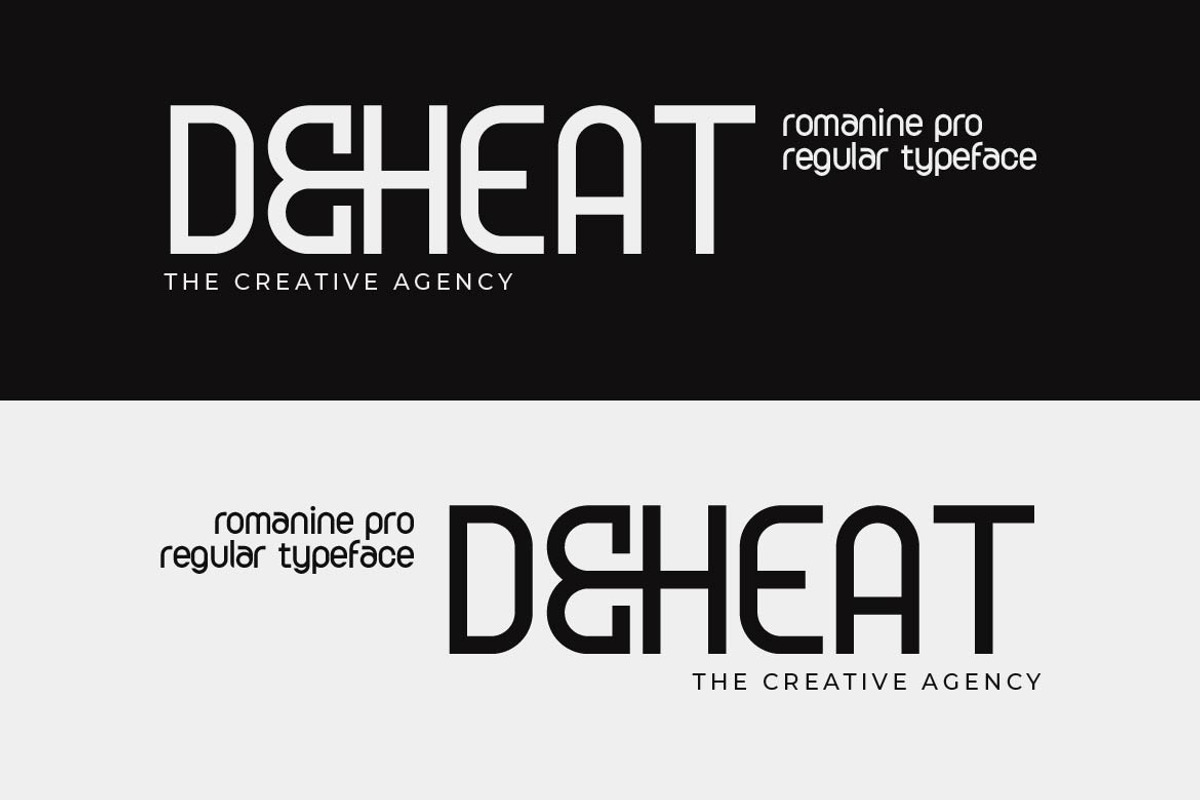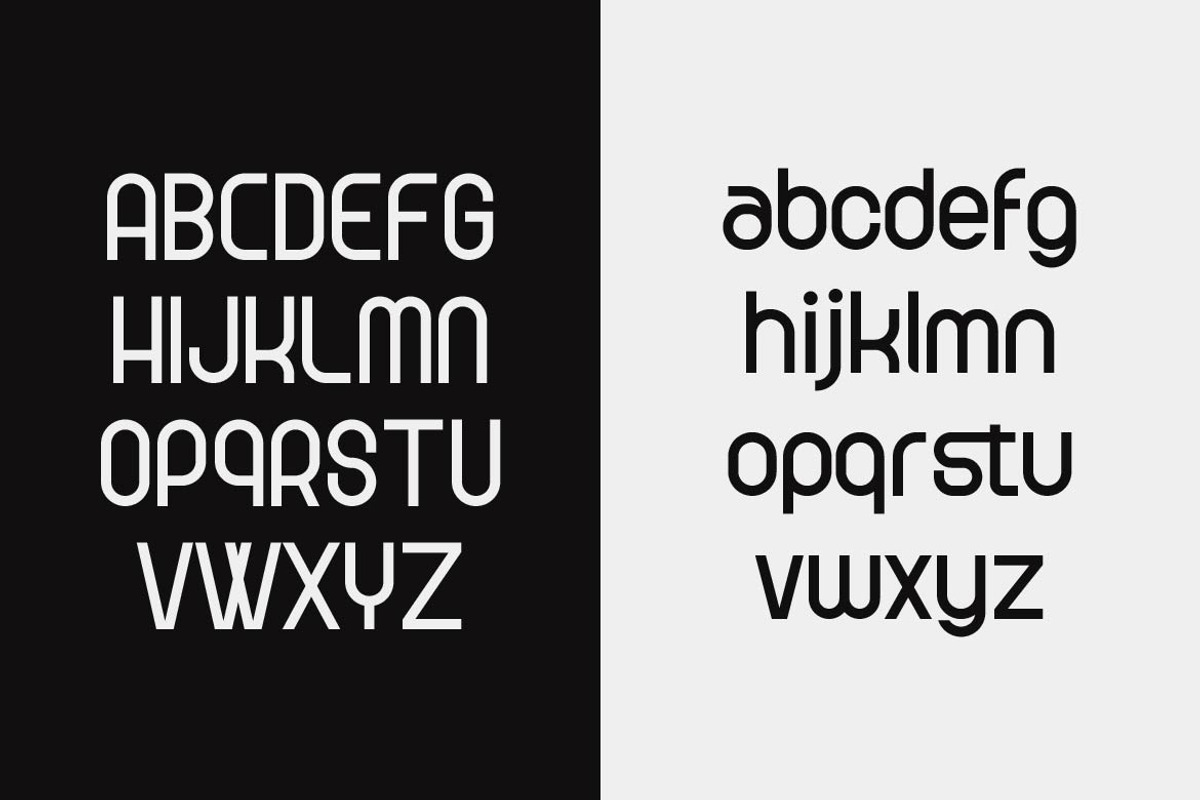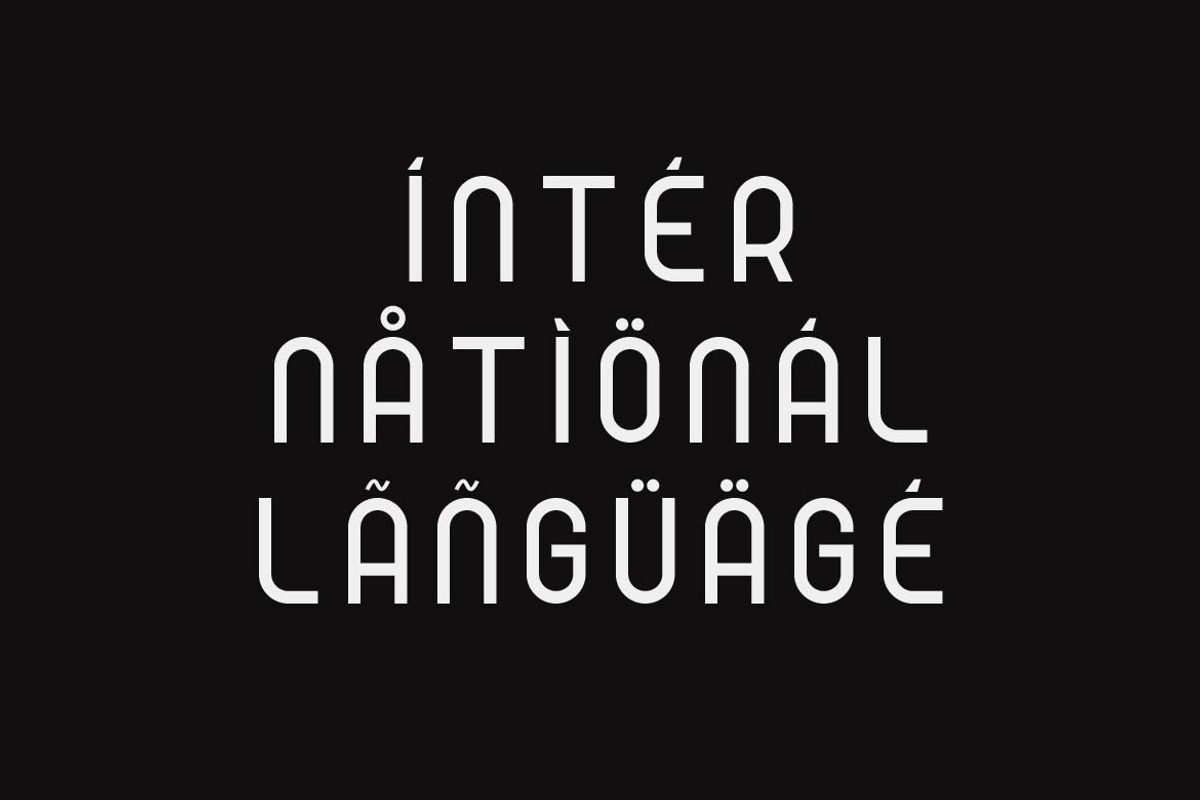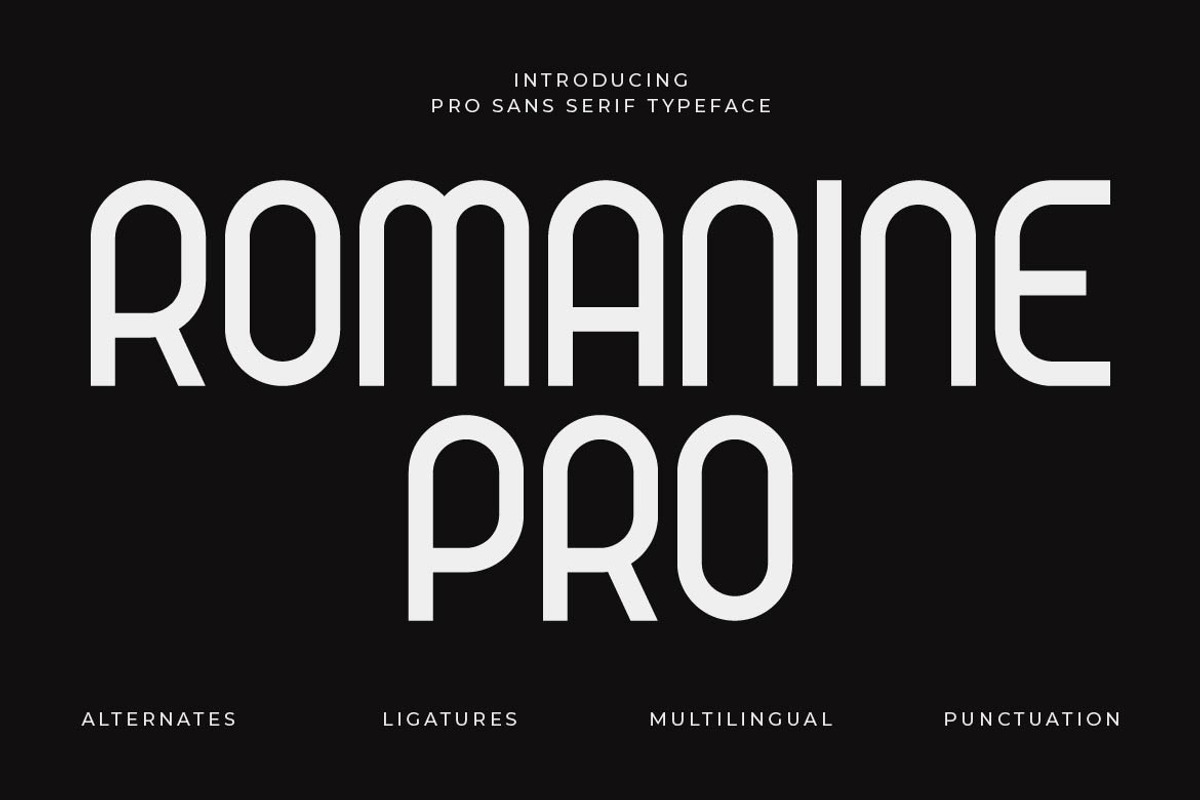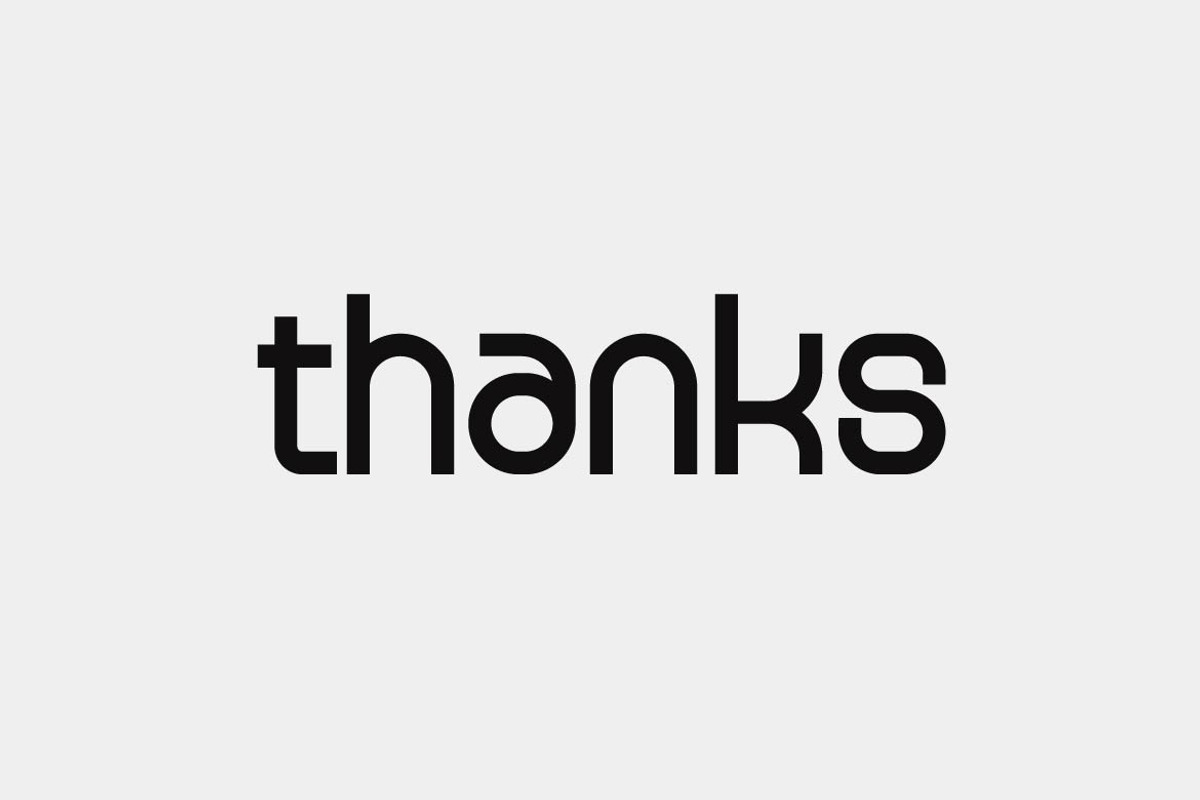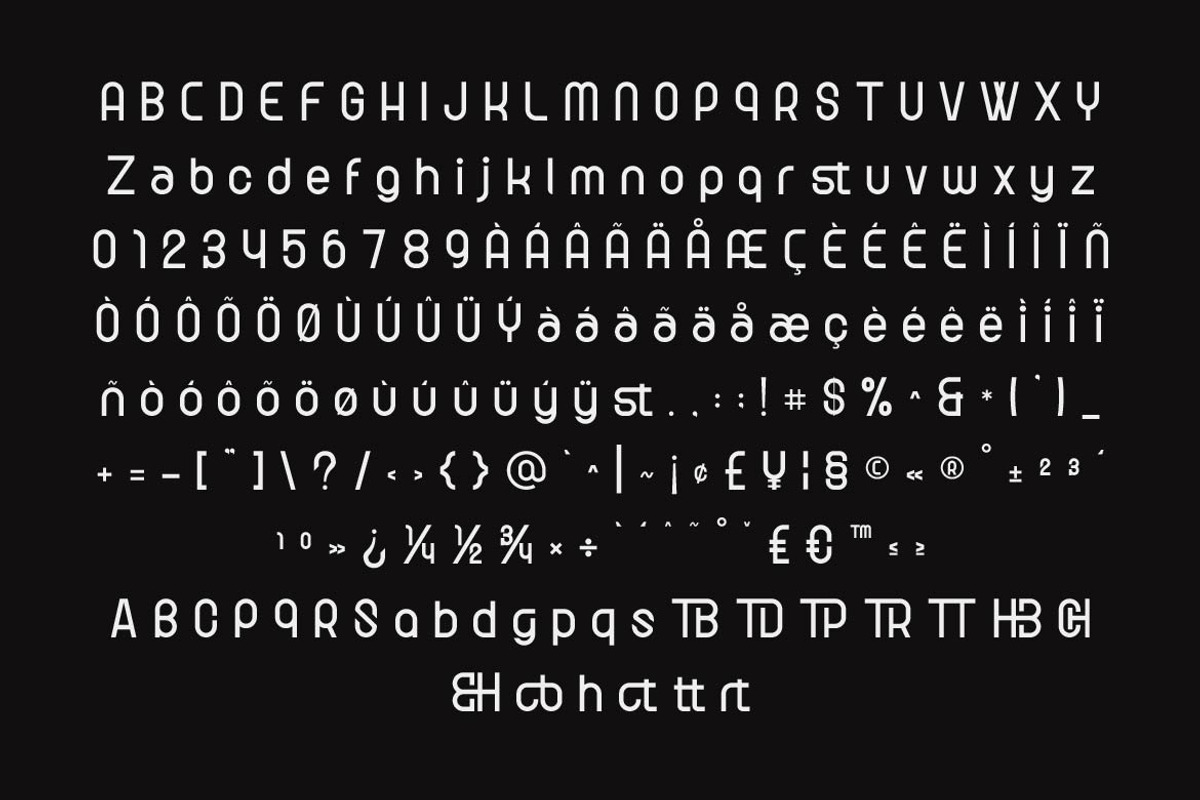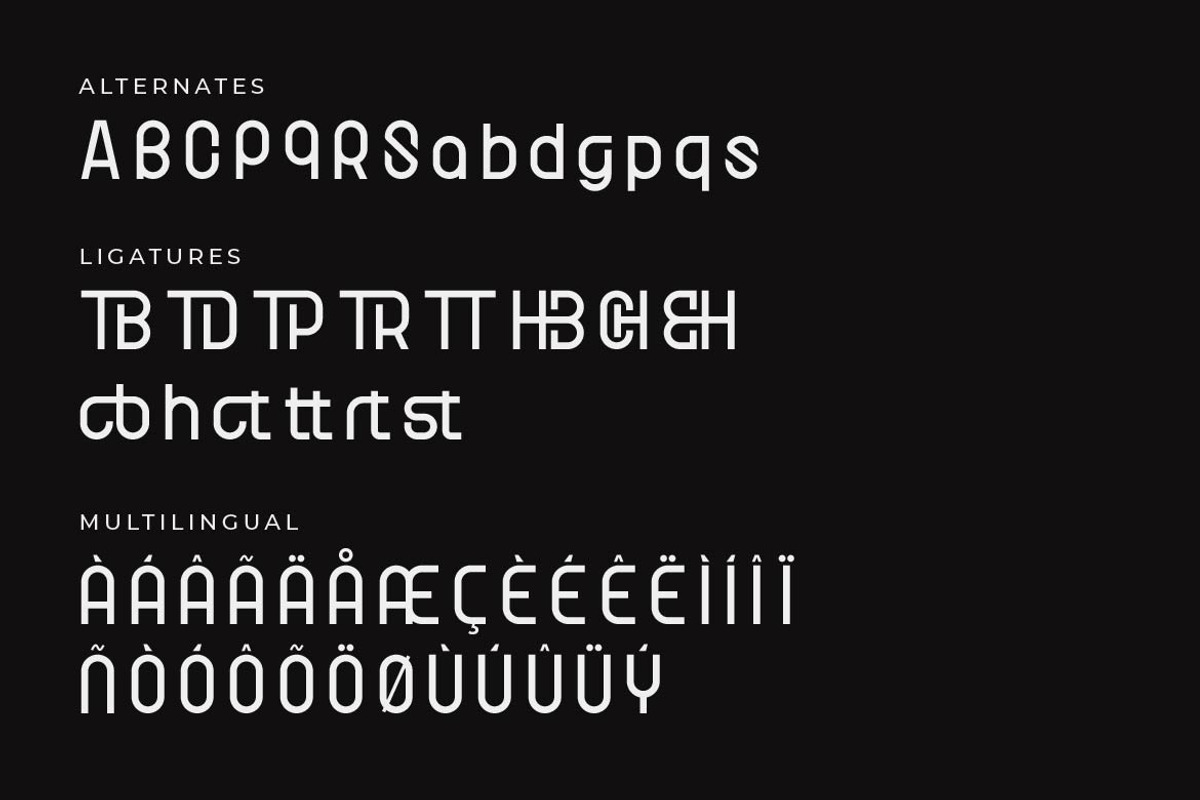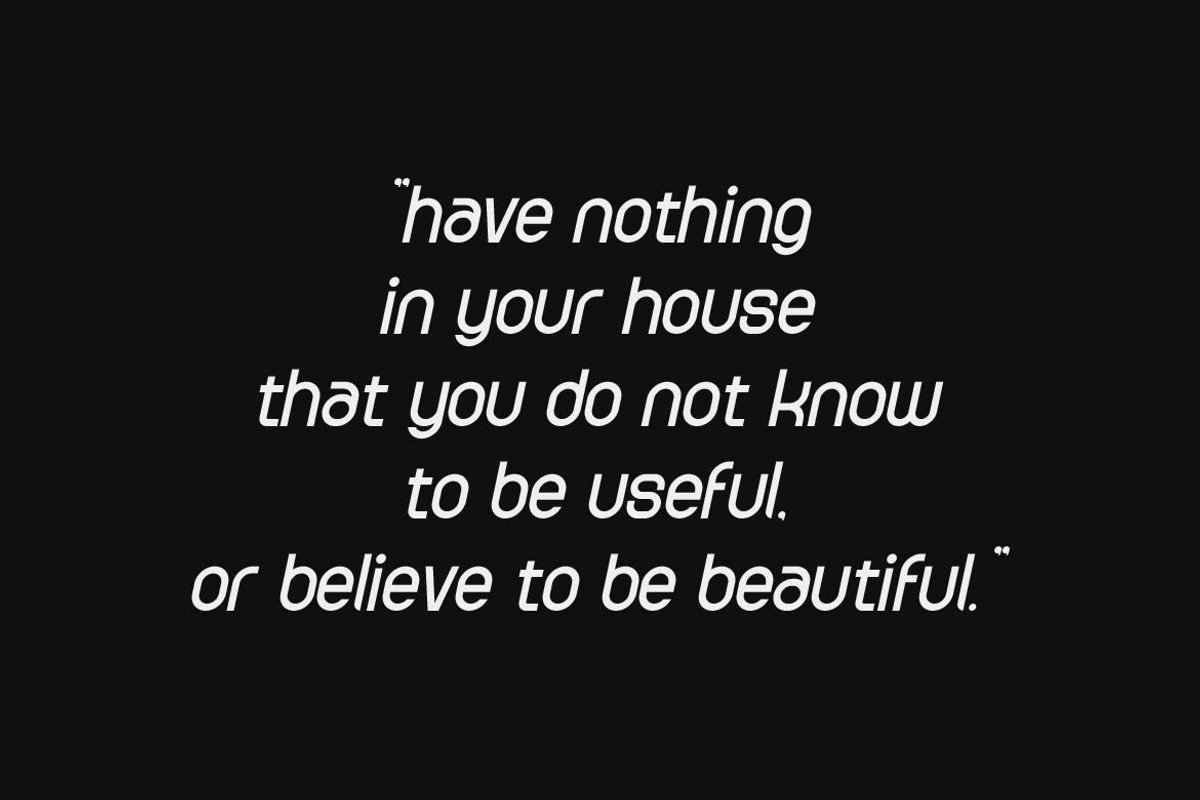
Romanine Pro Modern Typeface
Romanine Pro is a modern condensed sans serif typeface designed for clarity, impact, and professional versatility. With clean geometry, tall proportions, and a refined narrow structure, Romanine Pro is perfect for headlines, editorial layouts, branding, posters, magazines, web design, and contemporary visual identities.